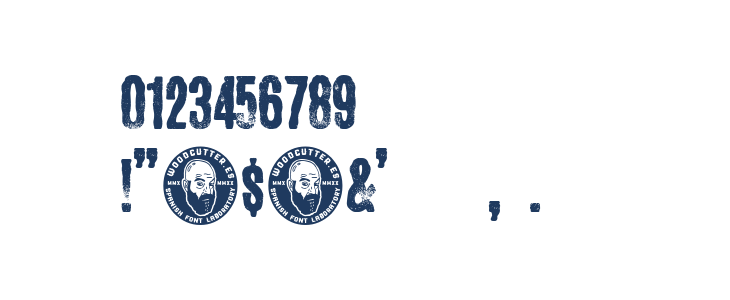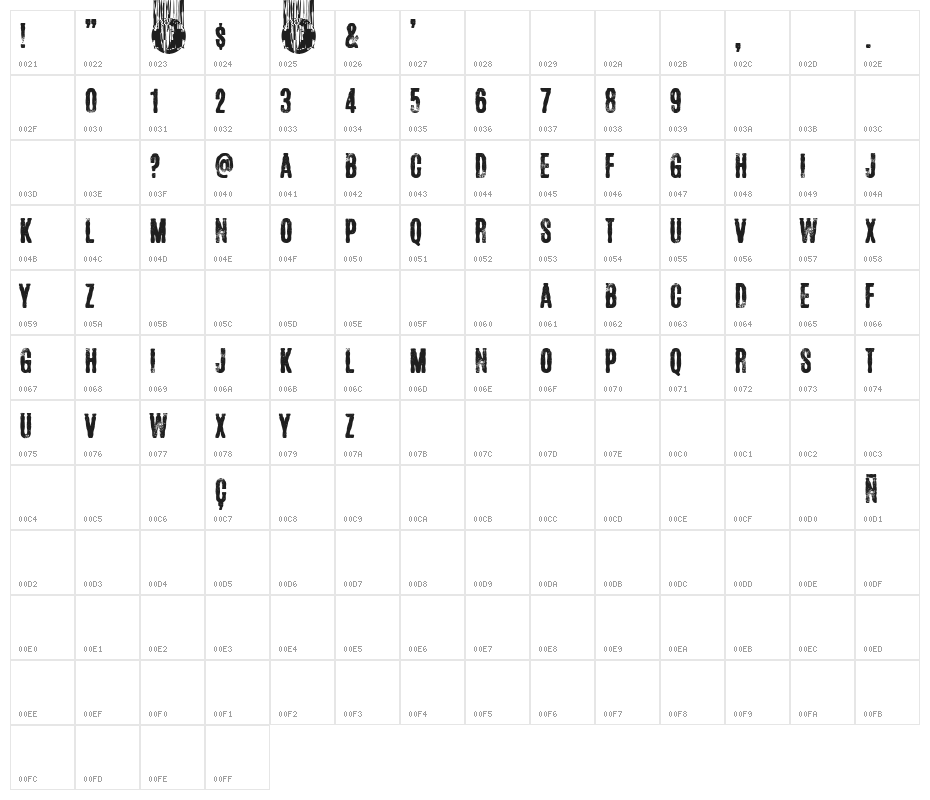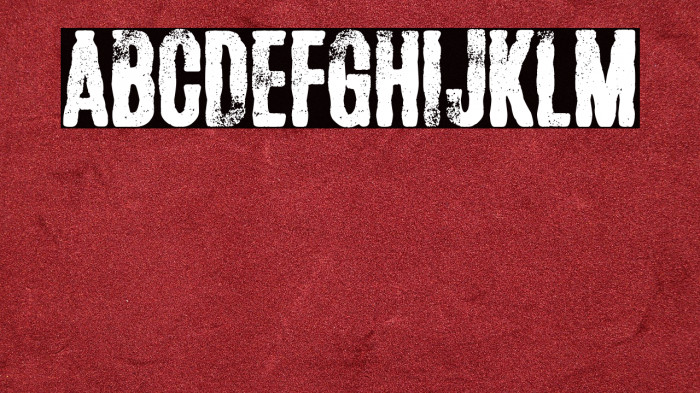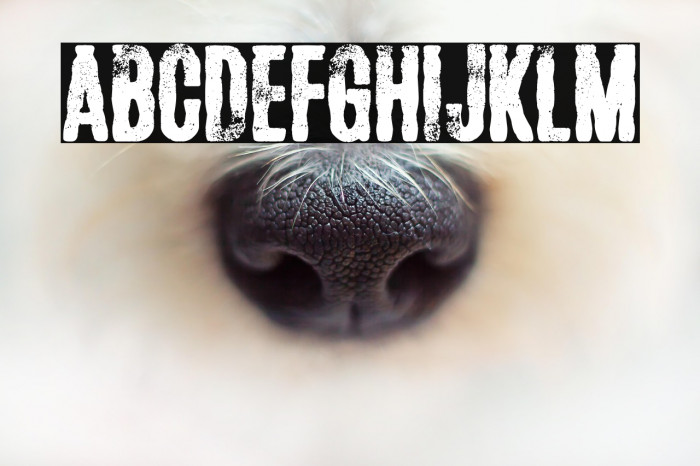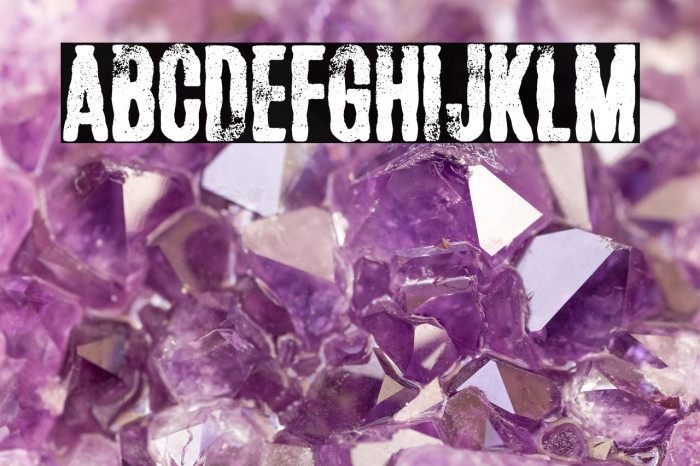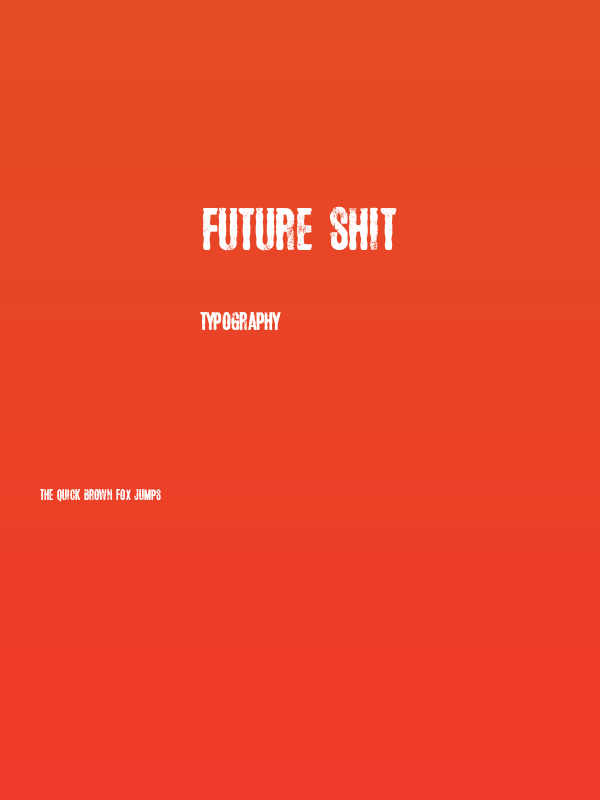
Future Shit Font
Future Shit Description
This font features a bold, distressed style with a textured appearance that gives it a rugged, vintage feel. The characters are uppercase and numerals, with a rough, uneven texture that suggests wear and age, making it ideal for designs that require a grunge or retro aesthetic. The font's boldness ensures high visibility, while the distressed detailing adds character and depth. It is suitable for projects that aim to convey a sense of authenticity and rawness, such as posters, album covers, or branding for products that emphasize a handcrafted or artisanal quality.
| Proposed Projects | Ideal for posters, album covers, branding, and any design requiring a grunge or retro aesthetic. |